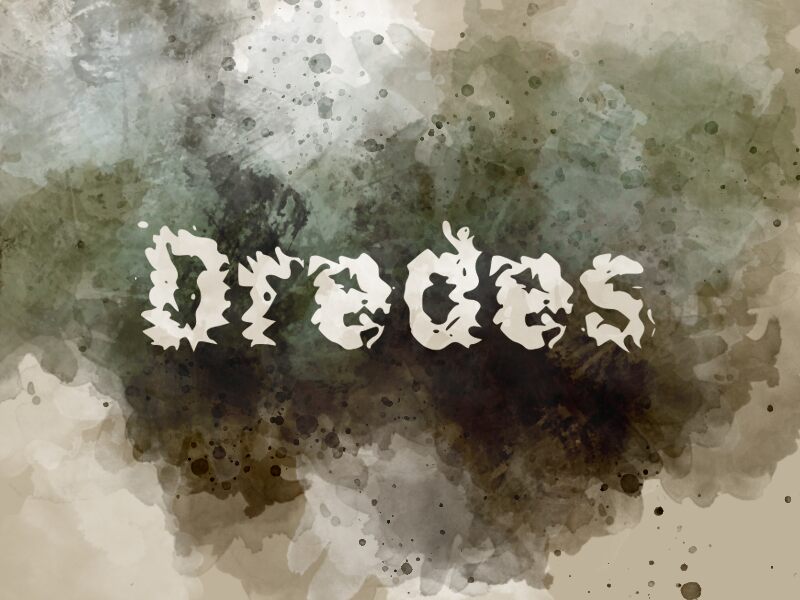
Dredes
Dredes is a bold and decorative display font designed by Wahyu Eka Prasetya. Its unique and ornate style make it perfect for designs that require a striking and memorable look, such as invitations, packaging, and book covers. Dredes is a versatile font that can add an elegant and sophisticated touch to your projects. Let your creativity run wild and create stunning designs with Dredes.